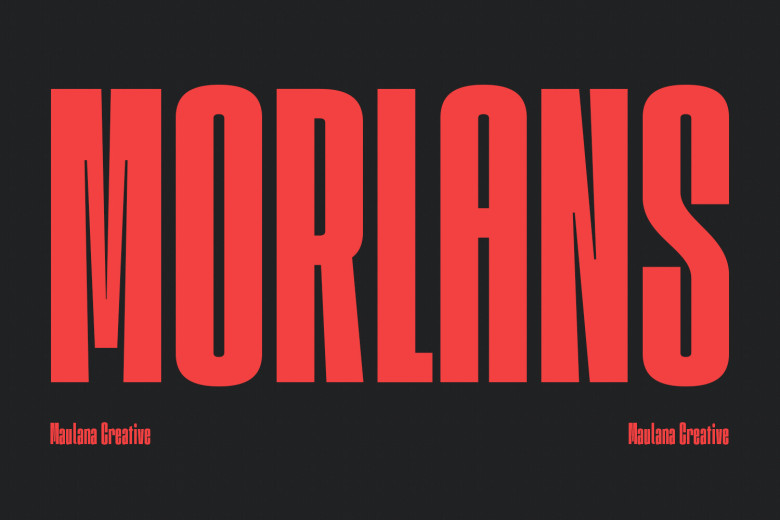
Morlans Font
Morlans font is an eye-catching display font which features compressed strokes with charming characters and subtle ligature touches, perfect for logo design, social media posts and movie, book titles or long texts alike – it is also great as secondary text font with serif or script variations allowing designers to craft beautiful designs using this font! Create stunning designs using Morlans font!
Morlans Sans Display Font